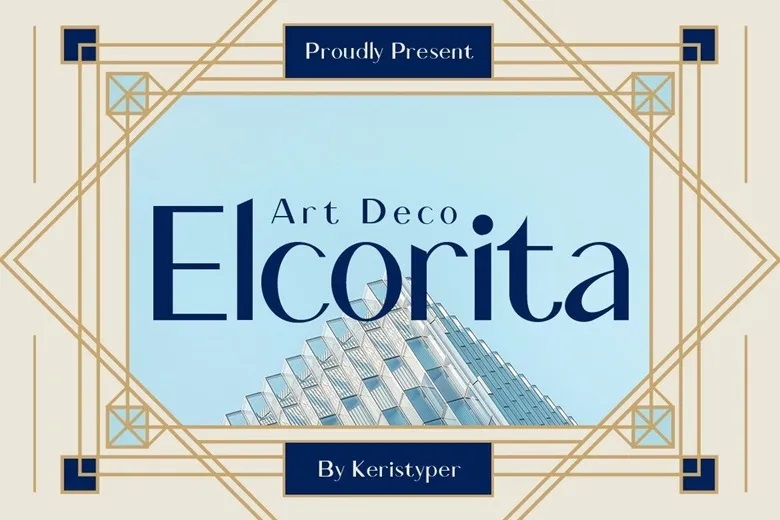
Elcorita Font
Elcorita is a beautiful sans serif typefaces with art deco influences and strongly contrasted temperament, clean and minimalistic. This font is best justified for logo, for social networks, for titles of movies and books, small and large Letters and for secondary letters at least for sans or serif.
Elcorita Sans Serif Font